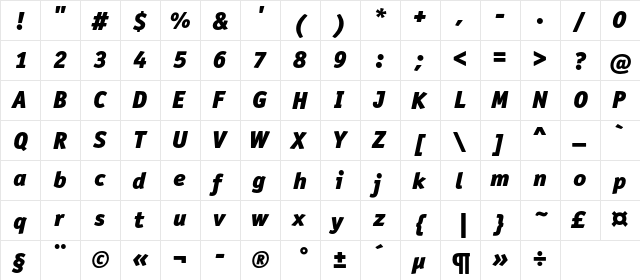
OfficinaSansBlackC Italic
Design Context for OfficinaSansBlackC Typeface
OfficinaSansBlackC takes a measured approach to typography — its balanced proportions and neutral character make it a reliable workhorse for both digital and print work. The slanted form adds forward momentum and visual energy.